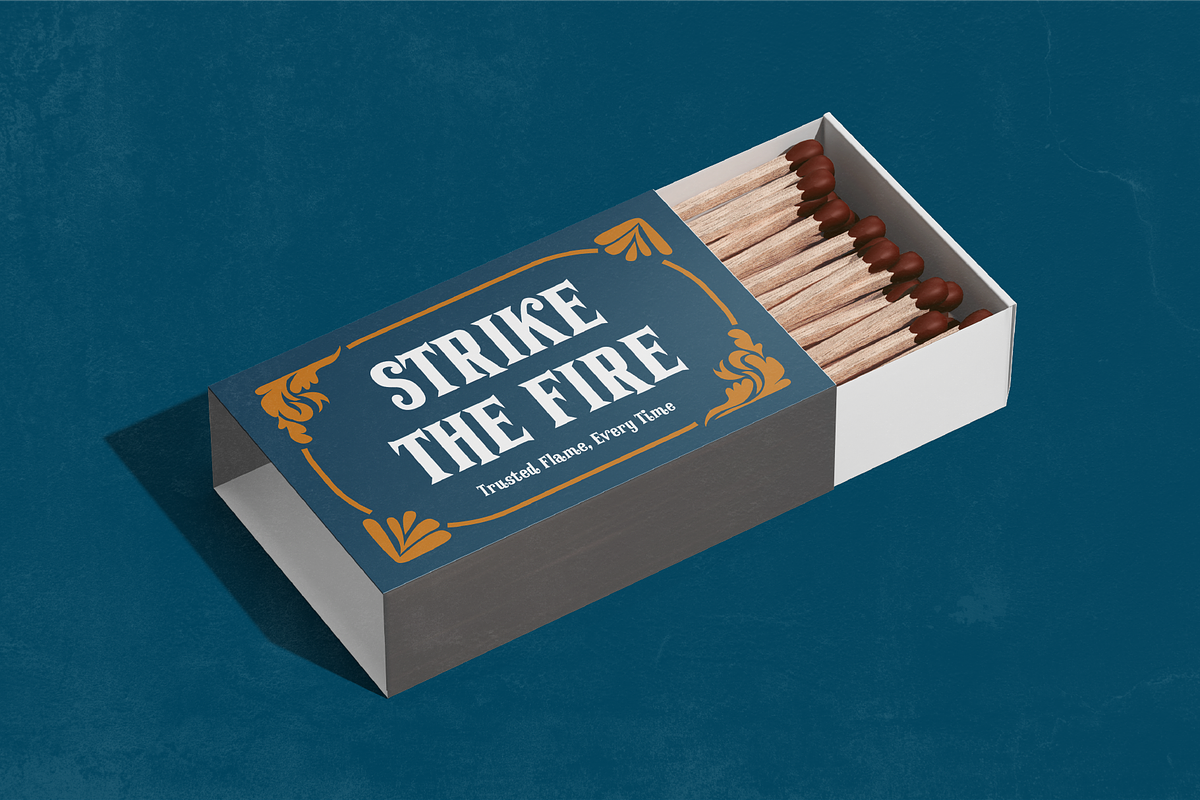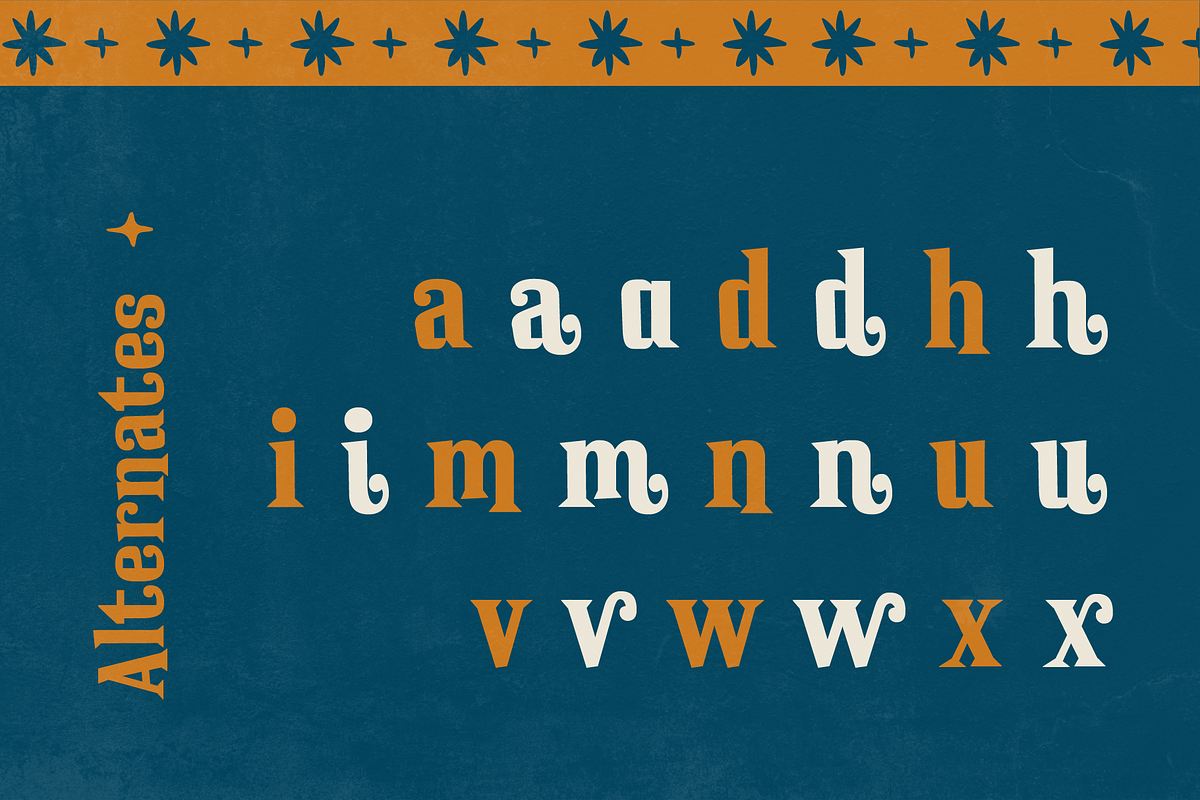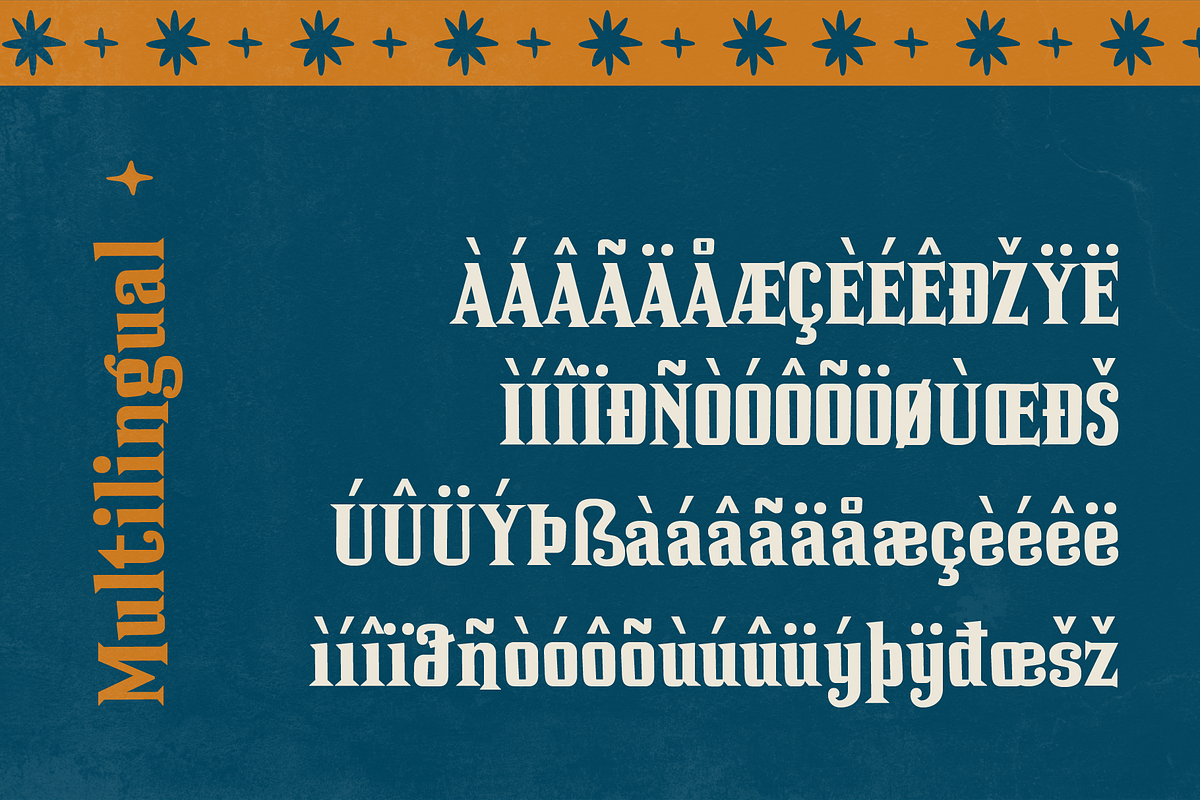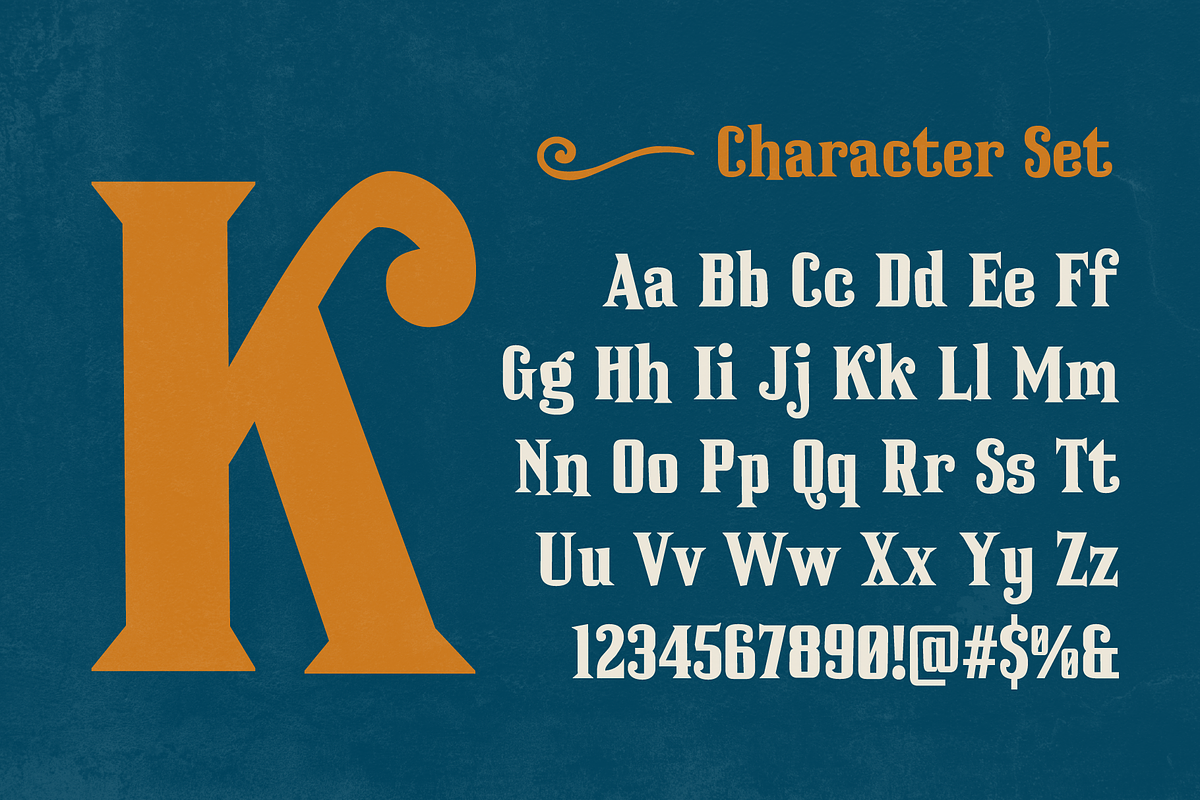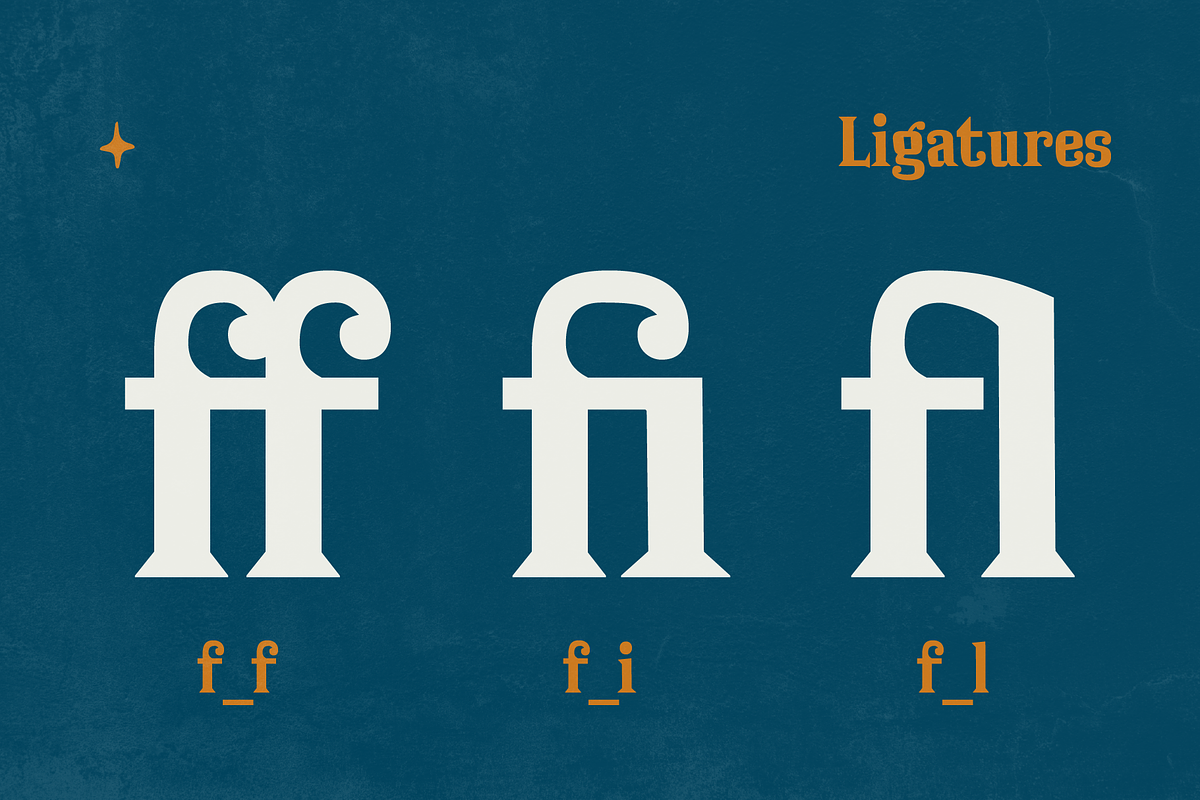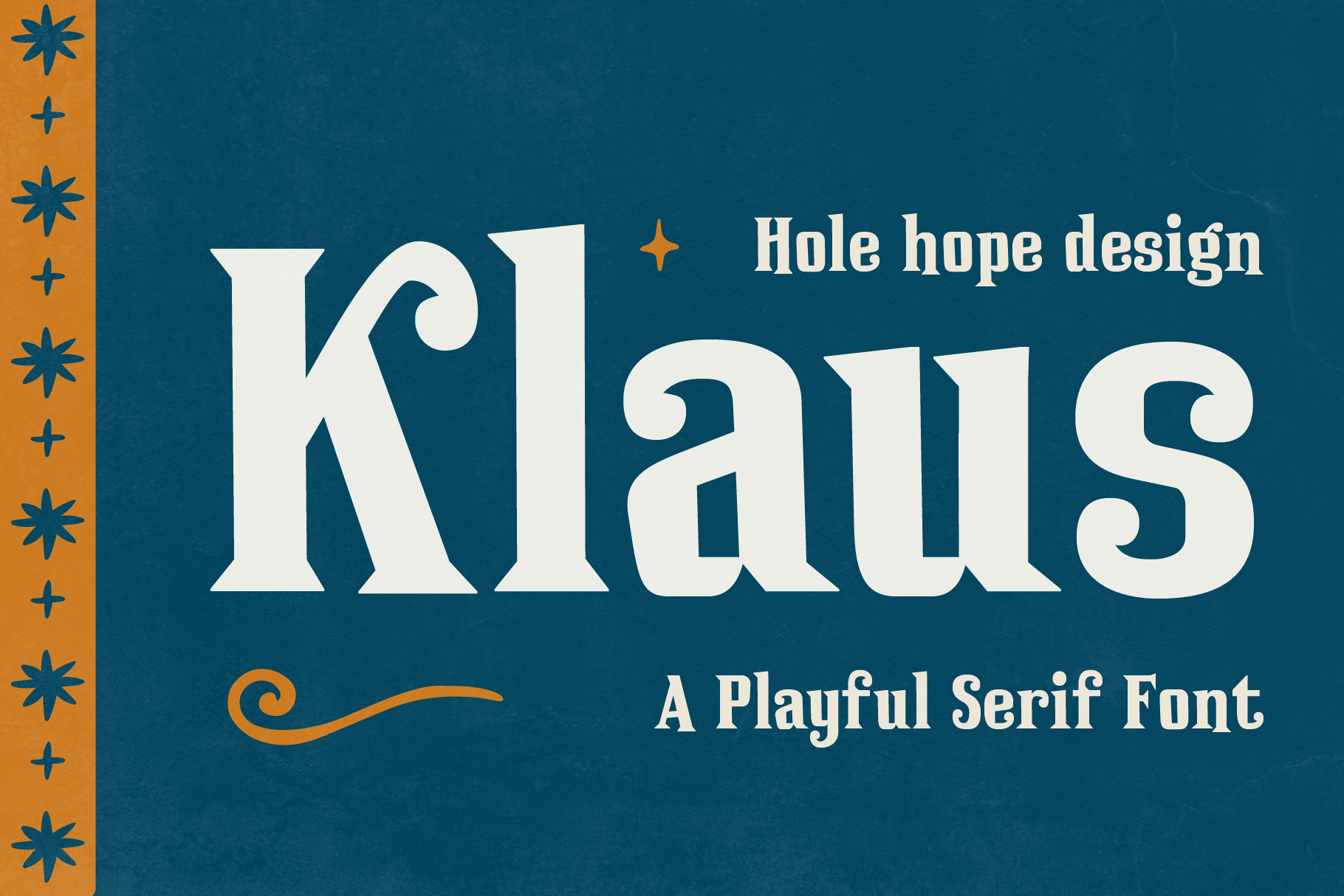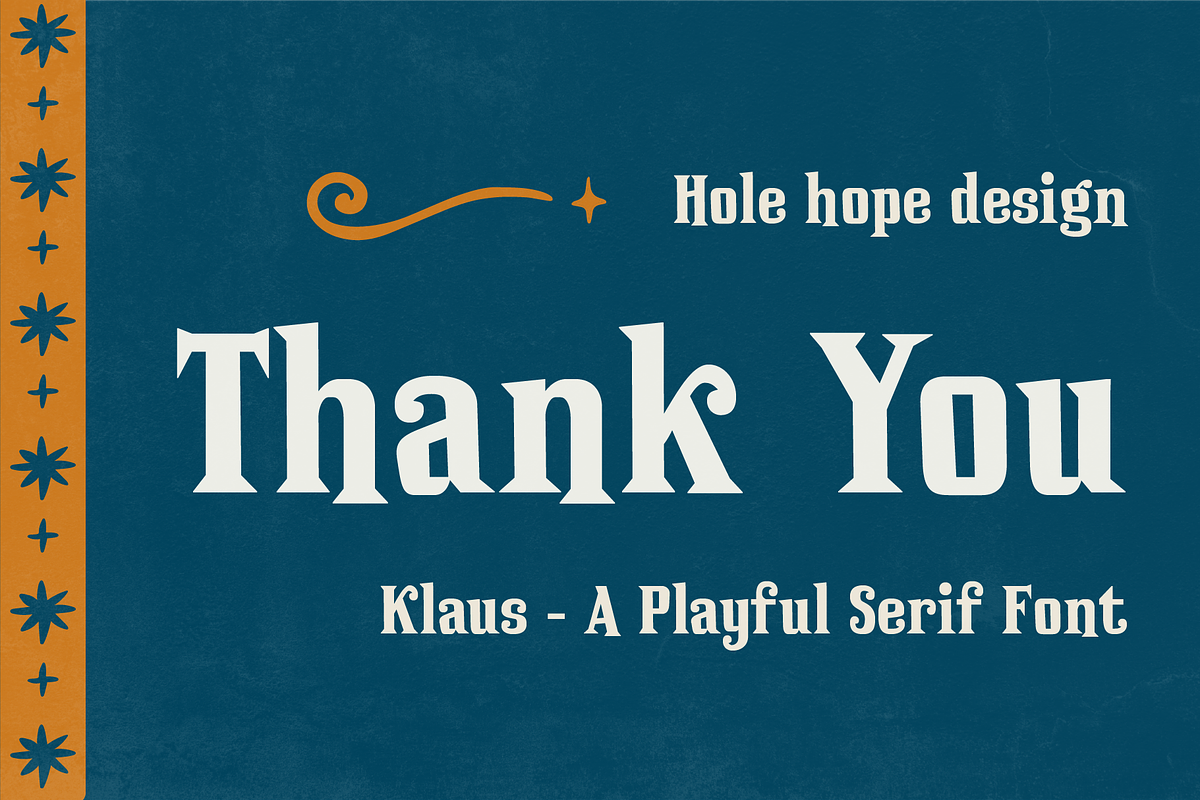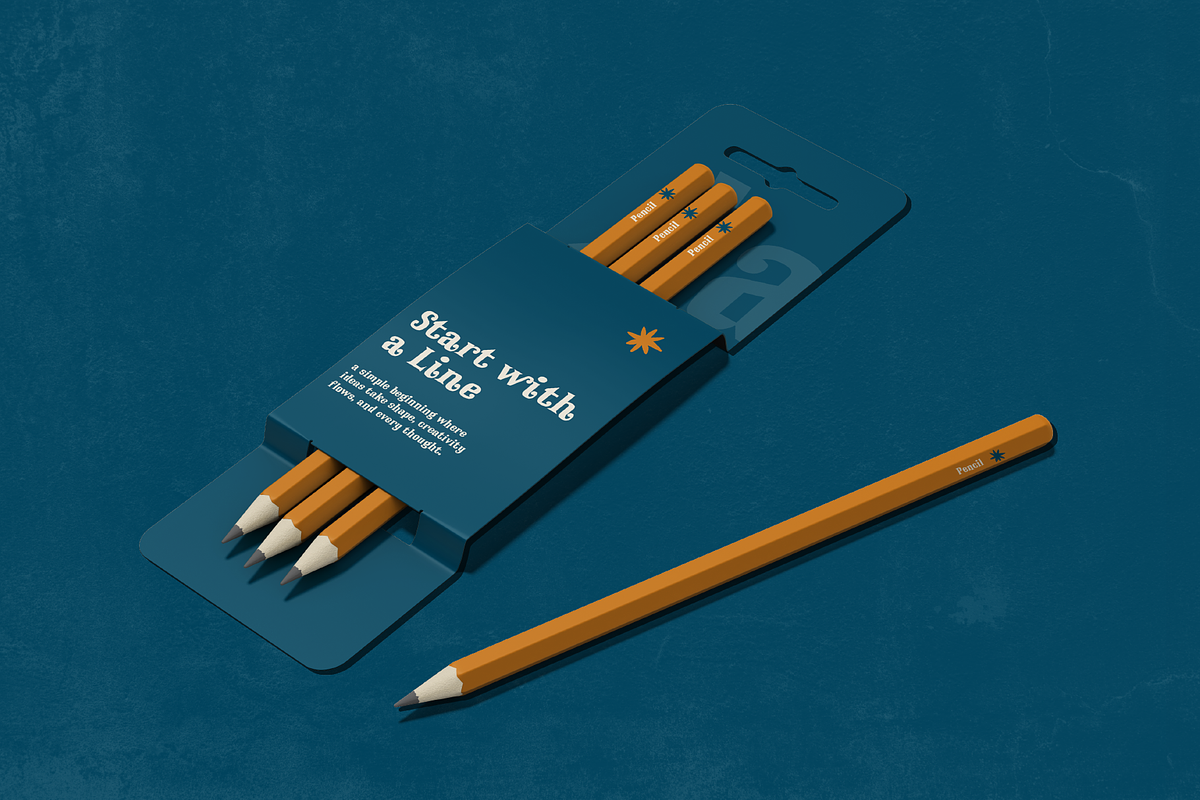
Klaus – A Playful Serif Font
Klaus is a celebration of culture, character, and joyful expression. Designed as a playful serif font with ethnic-inspired charm, Klaus blends traditional warmth with a lively modern personality. Its distinctive curves, decorative details, and rhythmic letterforms create a festive visual tone perfect for designs that aim to feel vibrant, expressive, and full of life.
Klaus is ideal for projects that celebrate identity, tradition, and creativity turning every word into a visual celebration.